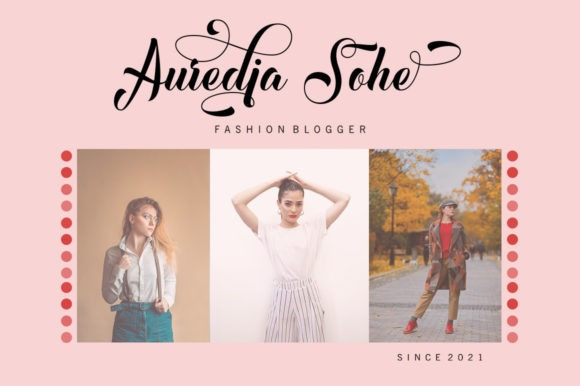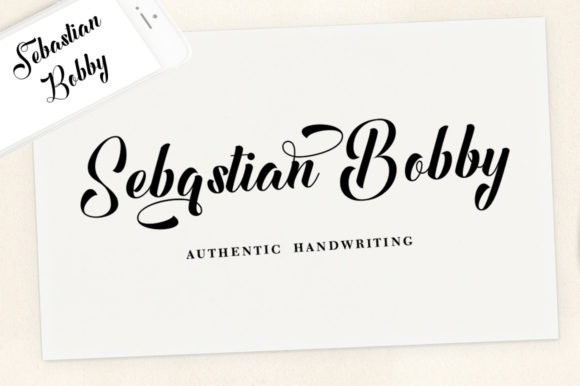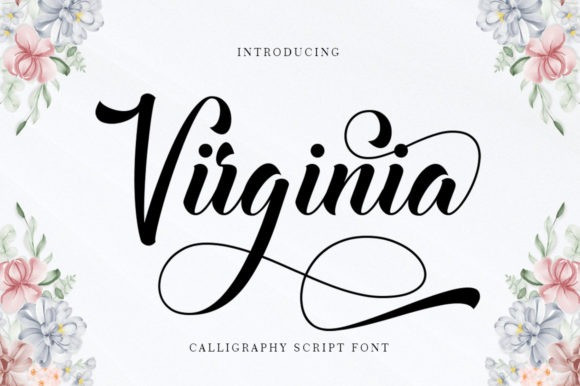
Virginia Font
Virginia Script Font is a calligraphic script font with multiple baselines, designed to convey elegance and style. It is subtle, clean and dainty. It works perfectly for logos, magazines, menus, books, invitations, wedding/greeting cards, packaging, labels, t-shirts and more. Virginia is PUA encoded which means you can access all of the glyphs and swashes with ease!